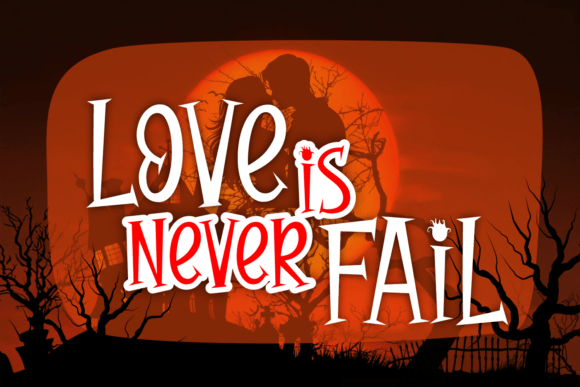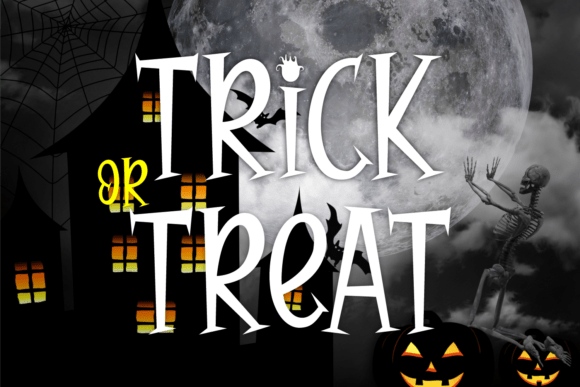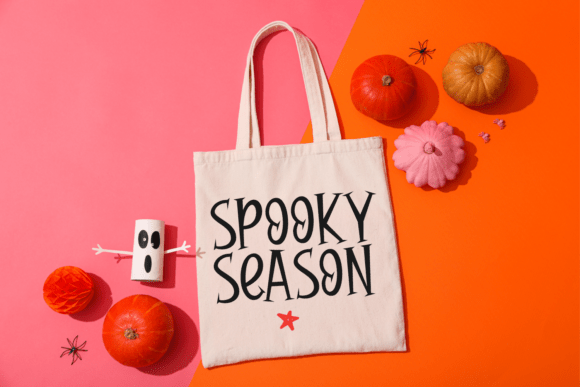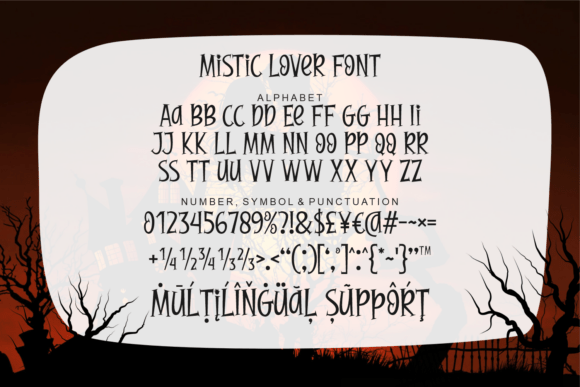
Introduction to Mistic Lover Font
Immerse your designs in an aesthetic aura of enchantment with the “Mistic Lover” font.
Exuding a captivating atmosphere of Halloween, this font carries a bold, towering stature adorned with peculiar ornamental intricacies, imparting an air of otherworldliness, antiquity, and a subtle spine-chilling aura It’s beautifully altered serif style captures your imagination with its curvaceous, pointed boundaries, making you think of mystical horns or savage claws.